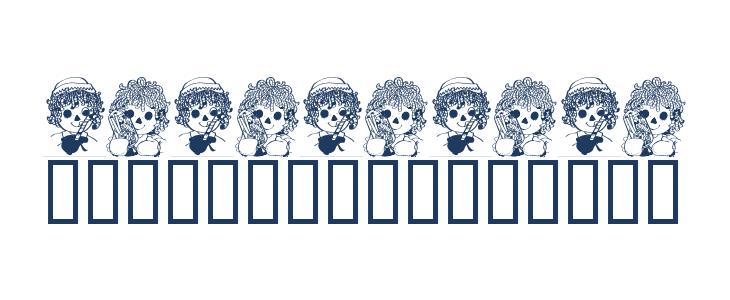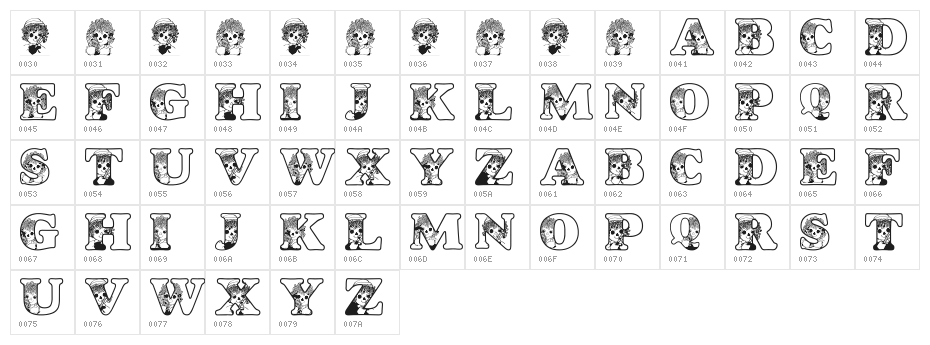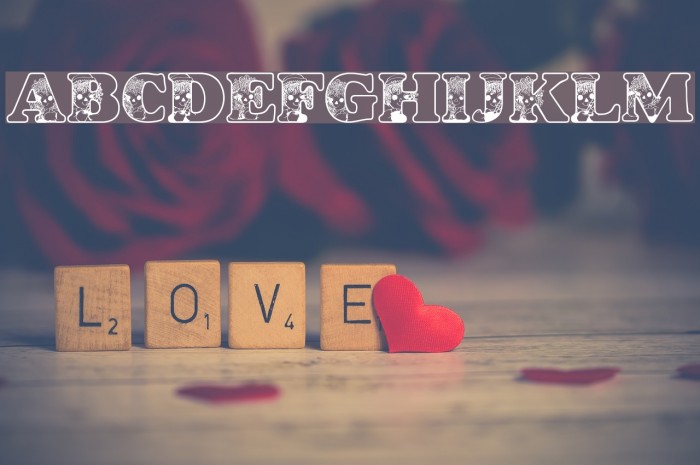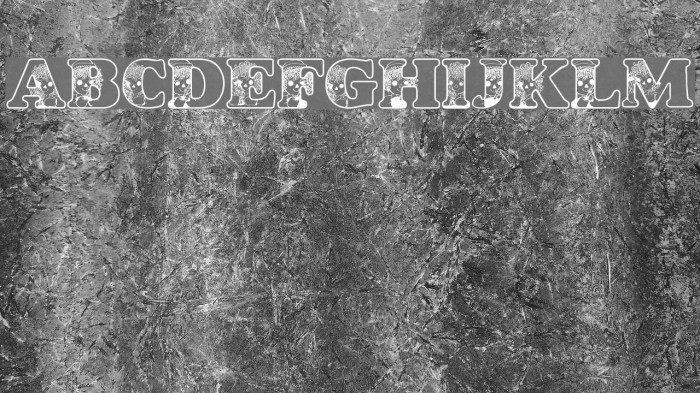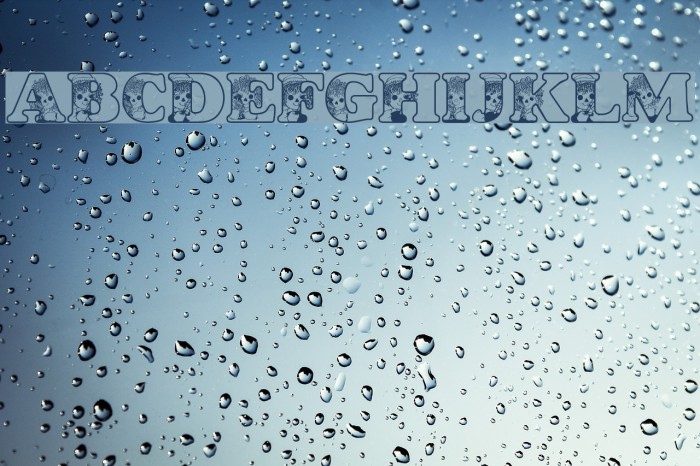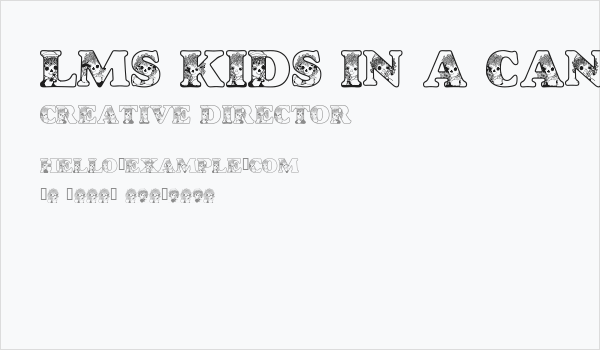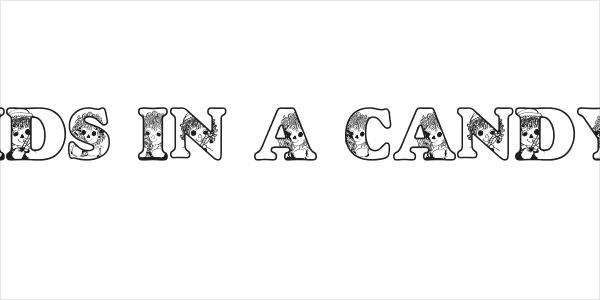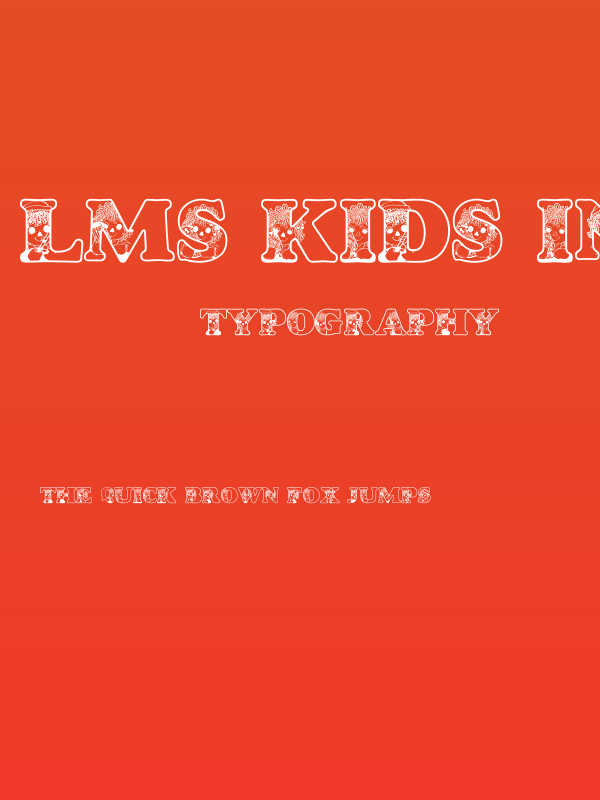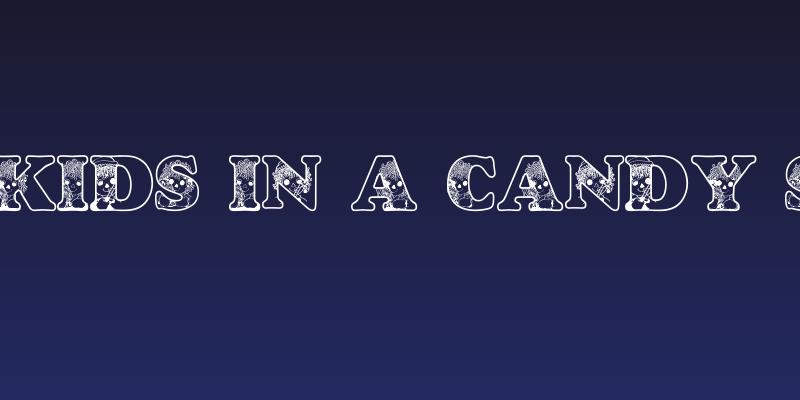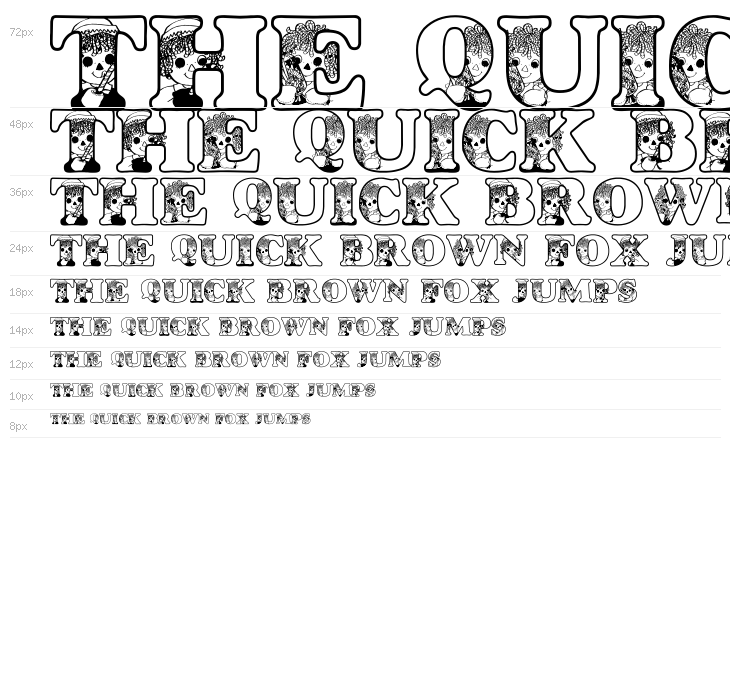
LMS Kids In A Candy Shop Font
LMS Kids In A Candy Shop Description
This playful and whimsical font features a decorative style with intricate patterns and designs within each letter. The characters are bold and eye-catching, making them ideal for creative and fun projects. The font includes uppercase letters with a consistent design theme that incorporates elements reminiscent of candy and childhood. The detailed patterns within the letters add a unique touch, making it stand out for special occasions or themed designs.
| Use Case | Headlines, Logos, Decorative Text |
| Proposed Projects | Ideal for children's book covers, party invitations, playful branding, and themed event posters. |